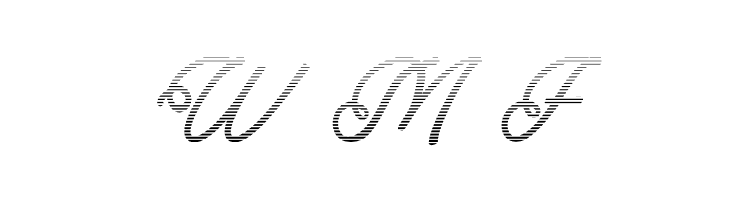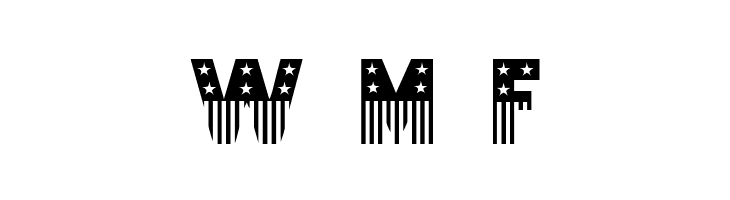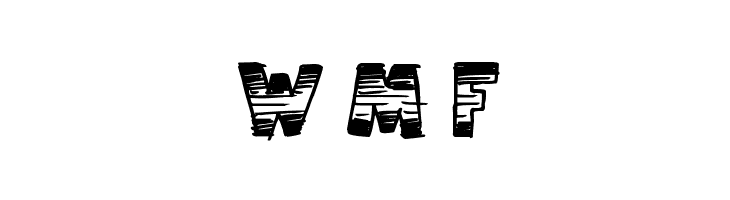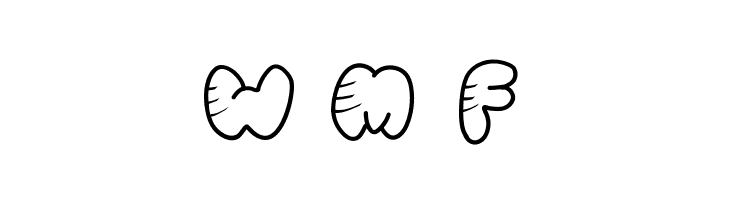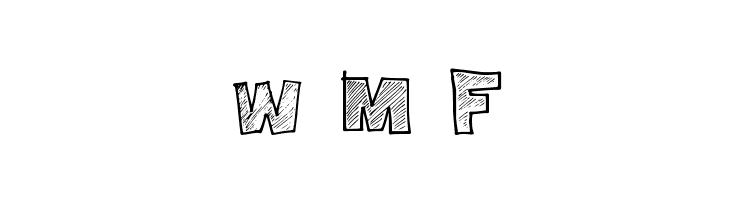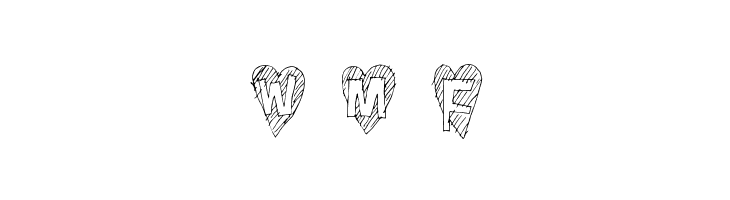
American Purpose STRIPE 1 Normal Font
A bold, impactful font with thick, uniform strokes and tight spacing.
Comic Strip MN Font
A playful, handwritten font with bold, rounded characters and a comic book style.
ViaGrande Stripe Bold Font
A bold, decorative font with a vintage striped design.
Stars & Stripes Font
A bold, patriotic font with stars and stripes integrated into each character.
Dalek Font
A bold, jagged font with a futuristic, distressed style.
Strippenzieher Ultra Font
A bold, high-contrast font with thick, uniform strokes and a playful yet assertive style.
Comic Strip Font
A bold, comic-strip style font with dynamic, sketch-like lines.
Galactica S Bold Font
A bold, angular font with a futuristic, geometric design.
WOX-Striped Triple Demo Font
A triple-striped, geometric font with a bold and modern style.
Galactica S Light Font
A futuristic, pixelated font with a digital, high-tech aesthetic.
Astakhov First One Stripe Font
A bold, modern sans-serif font with thick, uniform strokes and slightly condensed letterforms.
Airmole Stripe Font
A bold, striped font with geometric shapes and a modern, edgy style.
Stripes and bubbles Font
A playful, hand-drawn font with stripes and bubbles, perfect for creative projects.
hadfield Font
A bold, flowing script font with elegant curves and dynamic style.
Corner Font
A geometric, angular font with a modern and technical design.
Simula Silver Stripe Font
A bold, angular font with a modern, textured design.
Candy Stripe [BRK] Font
A bold, decorative font with a candy stripe pattern across each character.
Do I like Stripes? Font
A playful, modern font with elongated, curved characters and minimal contrast.
KG Hard Candy Striped Font
A playful script font with a striped, candy-like appearance.
StripedSansBlack Font